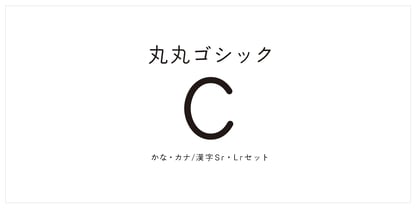
MaruMaru Gothic C_Sr
There are two variations of Marumaru Gothic. Sr, with its small rounded corners, is precise, while Lr, with its large rounded corners, gives a generous, relaxed impression. The fun of the Kanji characters changing from one to the other is unparalleled. Enjoy the typography that changes with the text. There are three types of kana. Kana C is a calm, slightly traditional design.